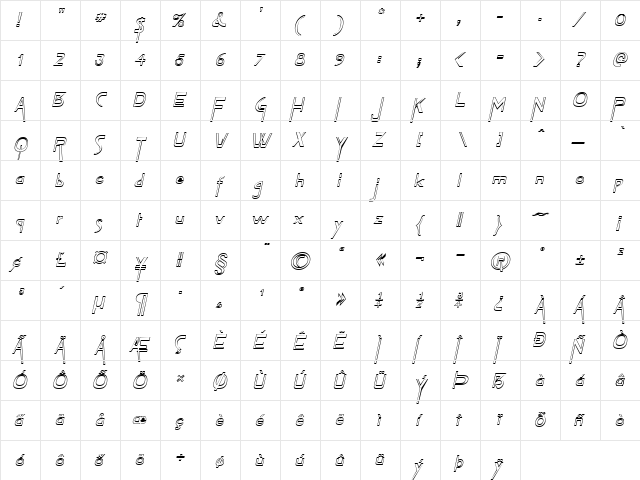
Tablet Hollow Italic
Design Context for Tablet Hollow Typeface
Tablet Hollow offers clean, dependable letterforms without strong stylistic allegiance, making it a practical choice for designers who need flexibility. Its italic angle brings a sense of urgency and motion to the letterforms.
Pro Tip: Use Tablet Hollow for emphasis, pull quotes, and subheadings where its slanted energy can add rhythm to the layout.